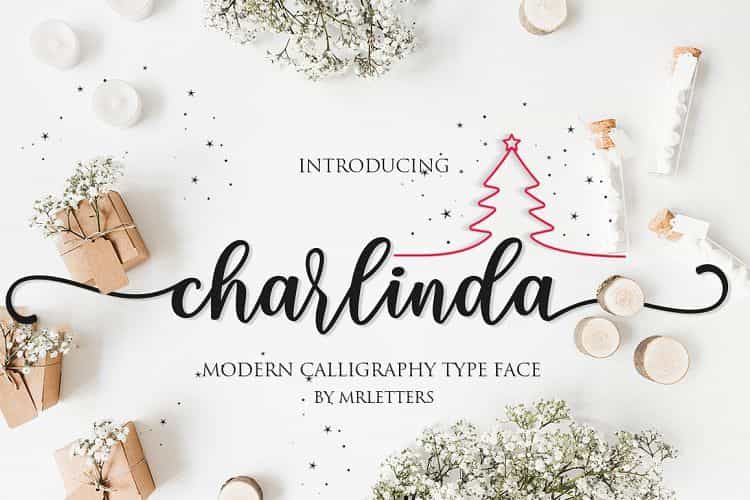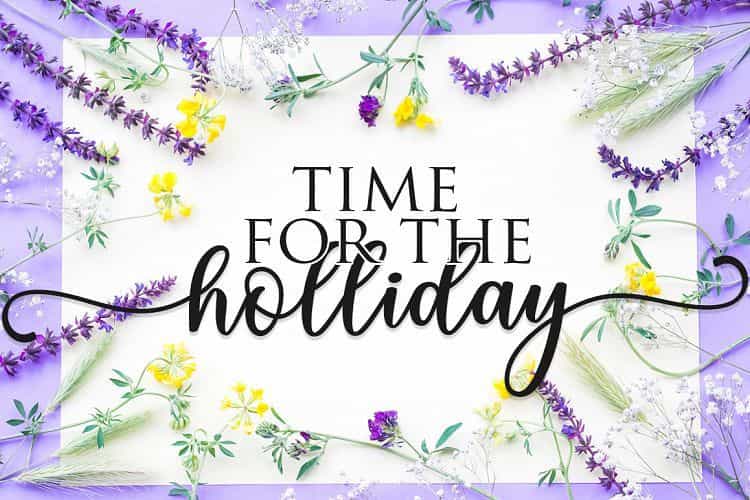
Introducing Charlinda Font. The power point is made by Mrletters and shared at the end of each lesson. It becomes ideal for the private entities that intend to brand their products, wedding invitations, magazines, mugs, business cards, quotes, and many more that you can use on your big project will be very beautiful.